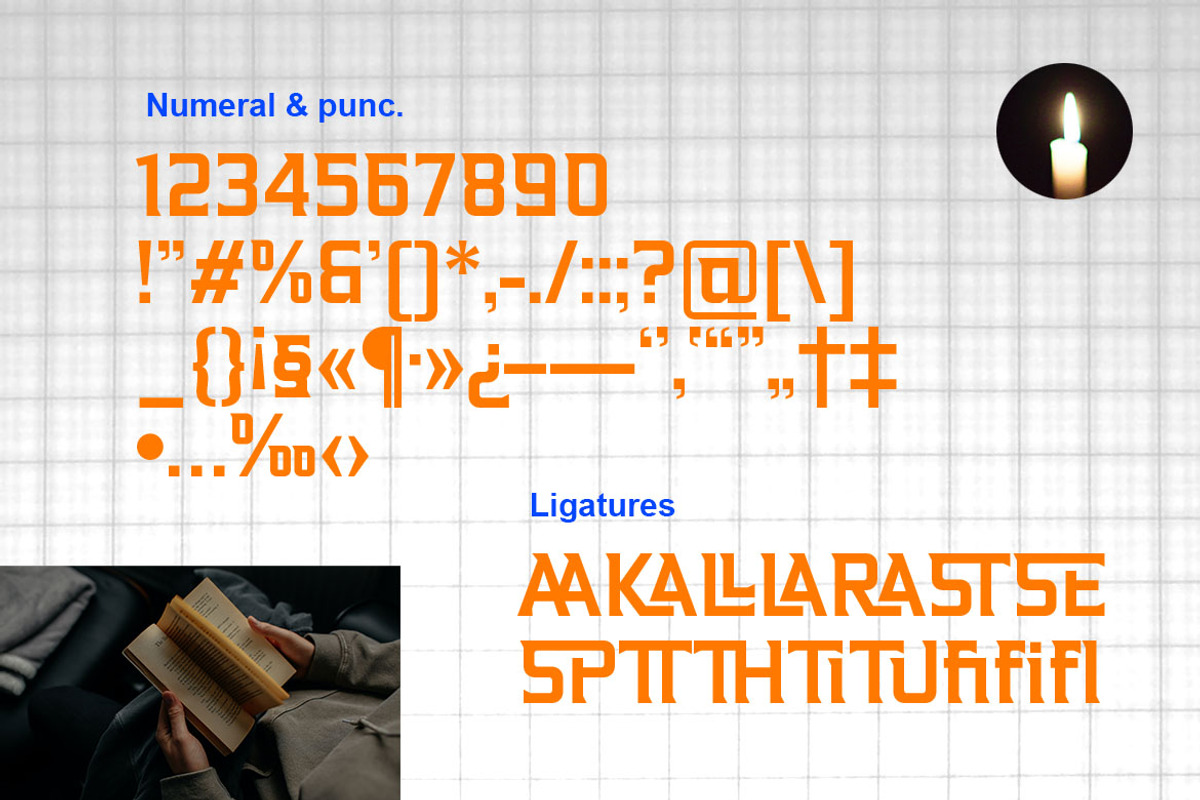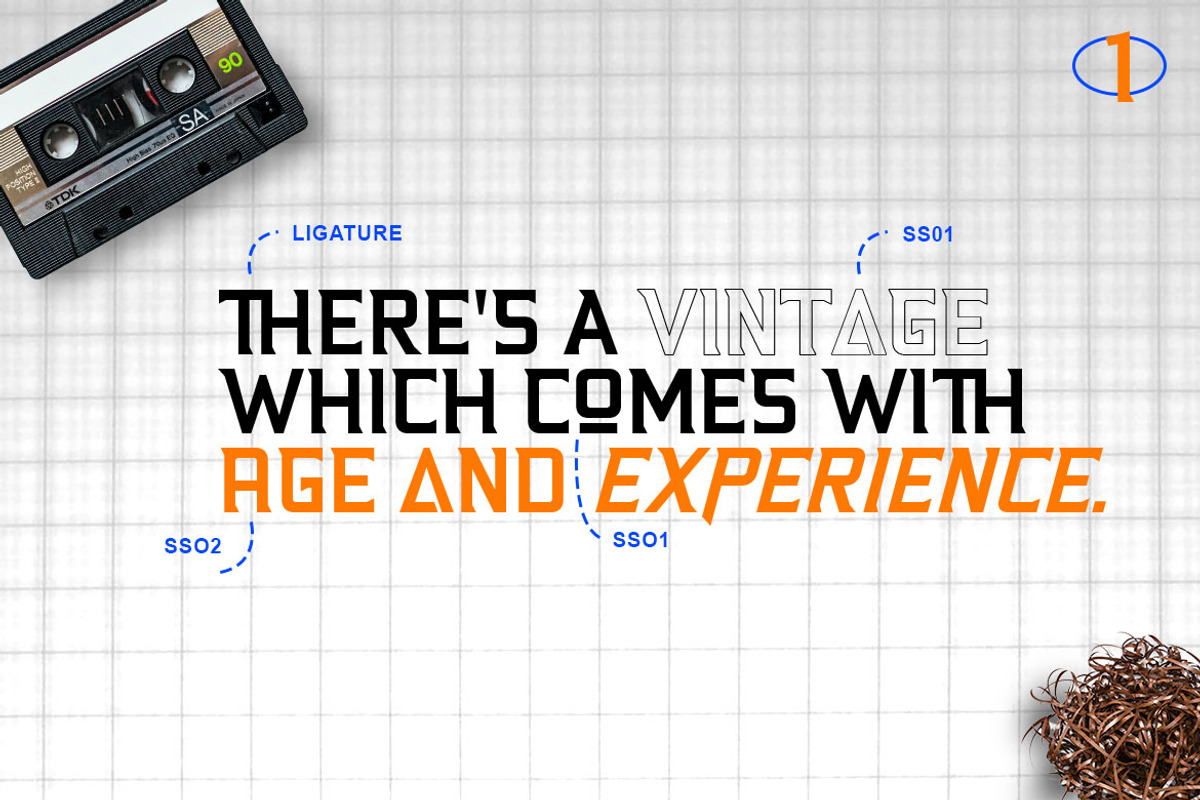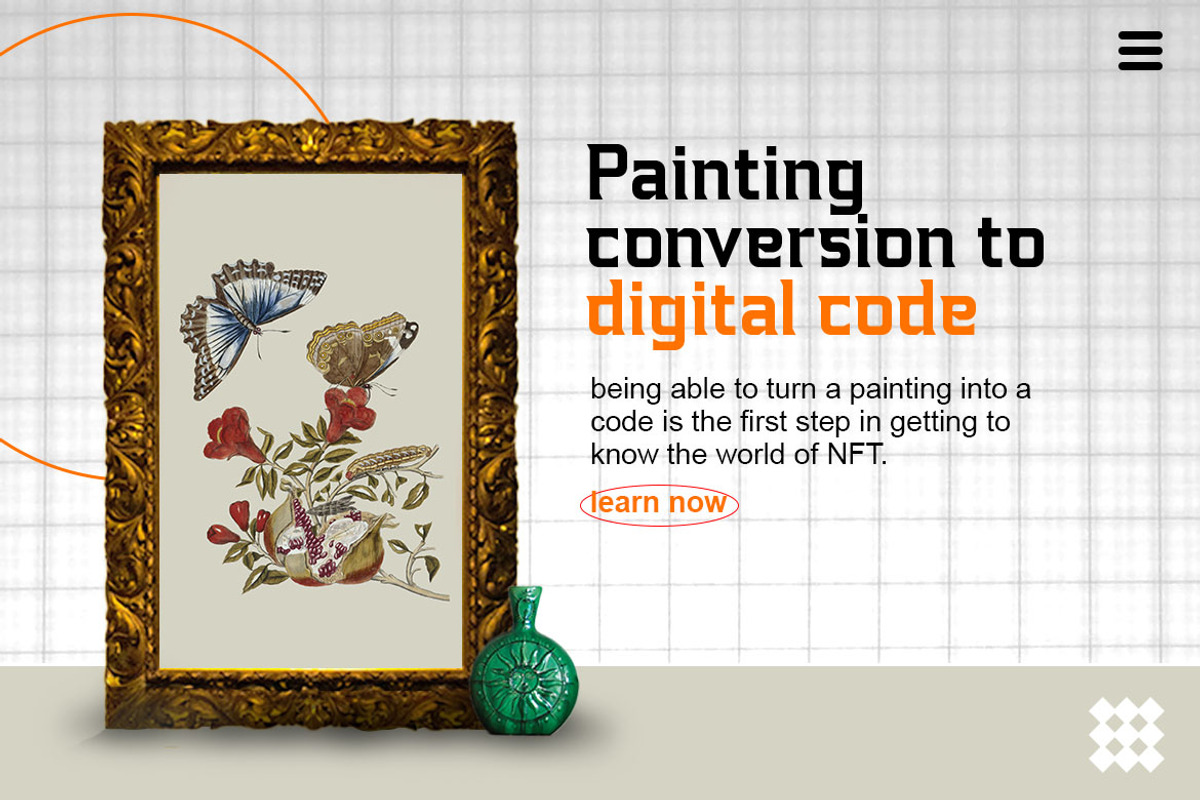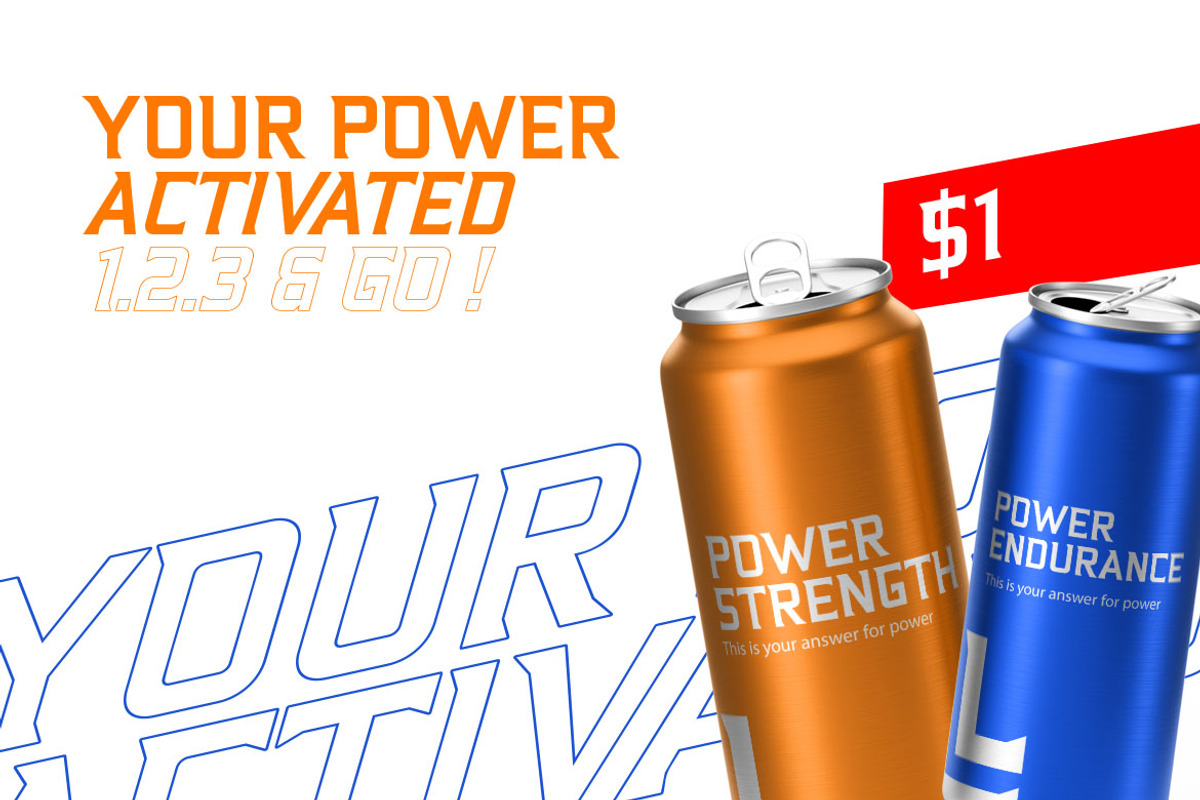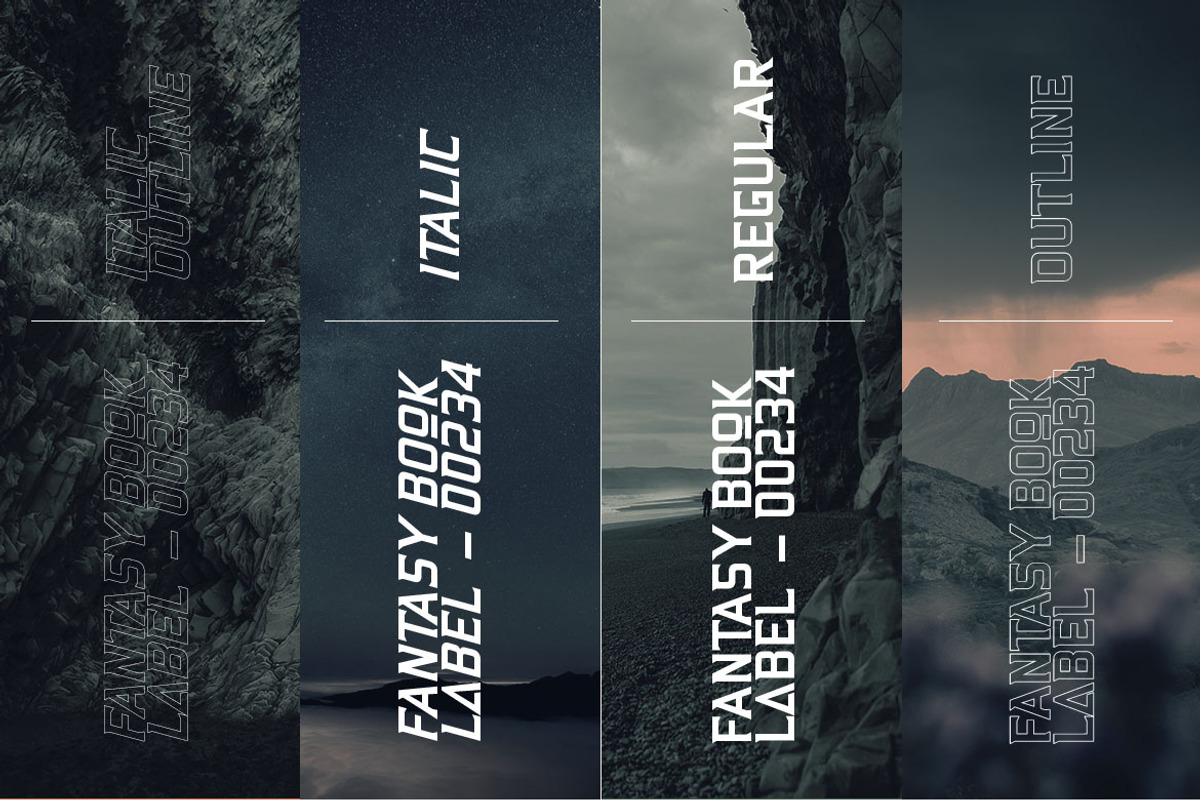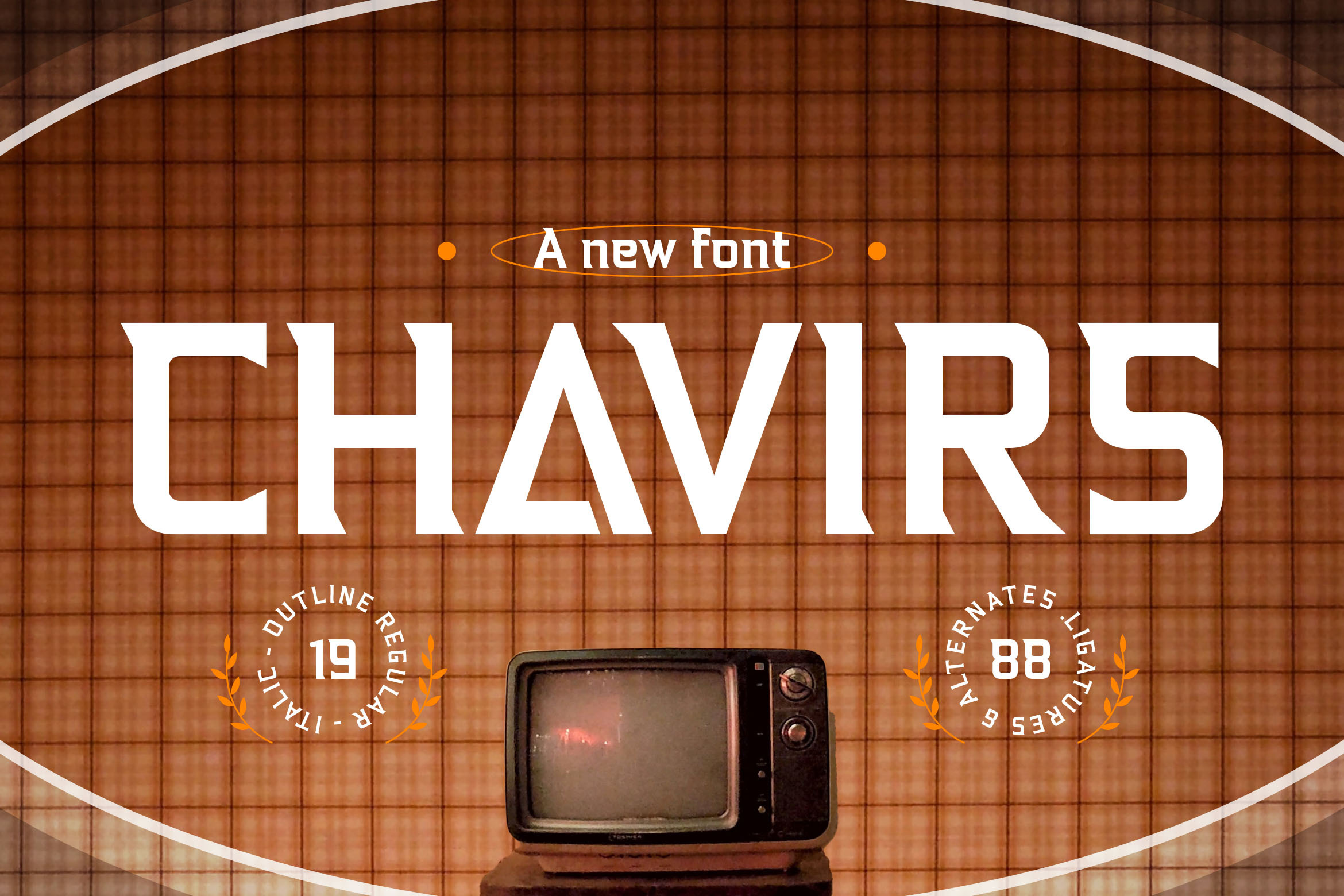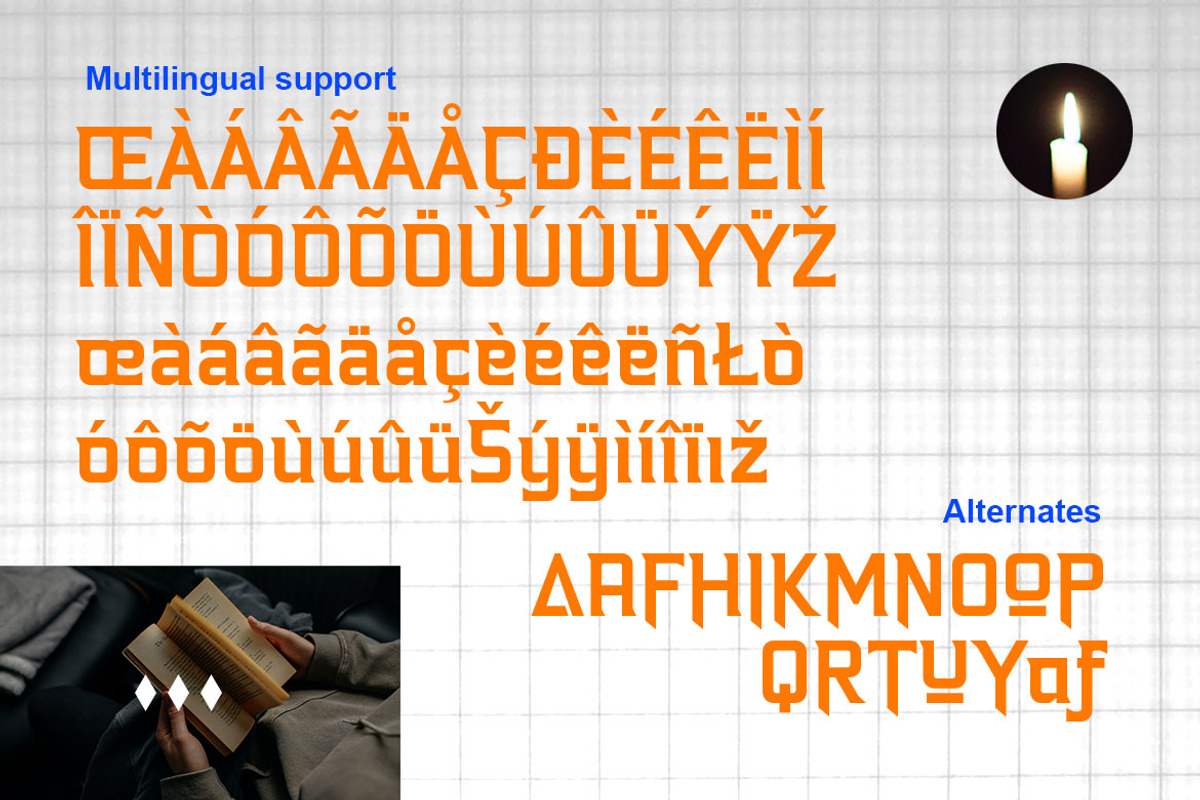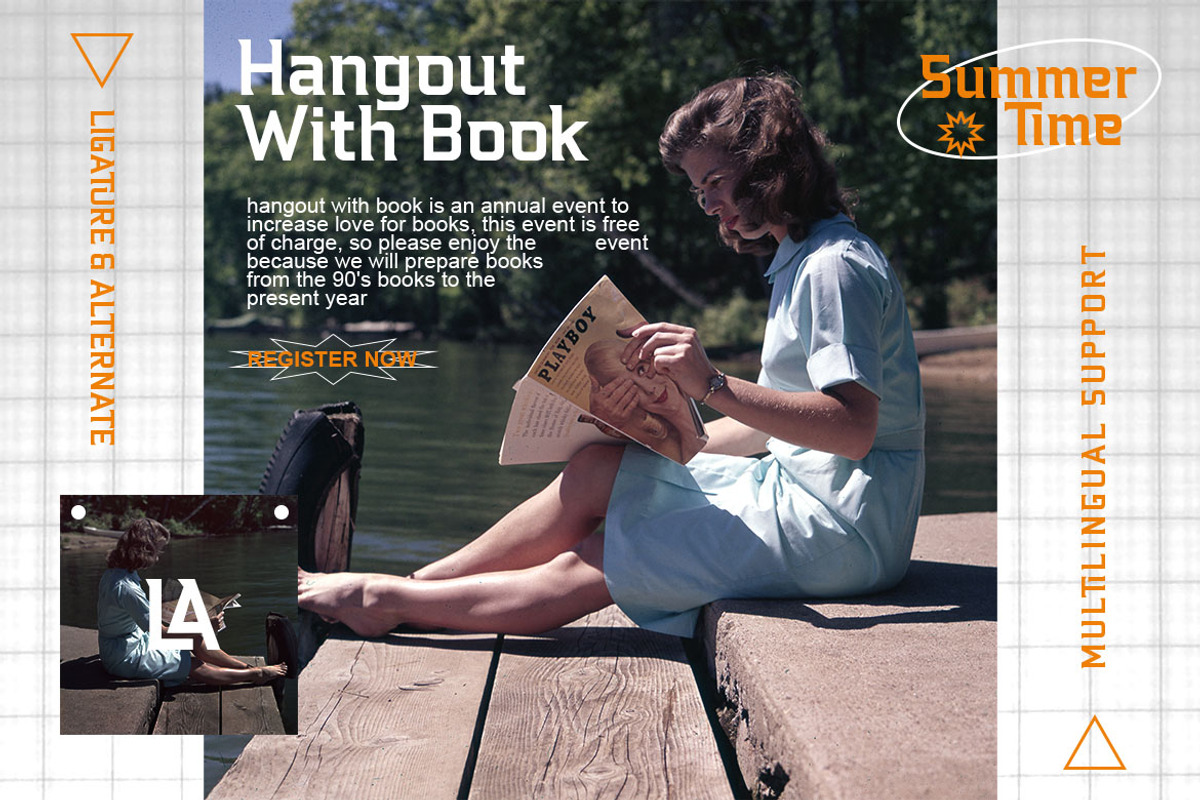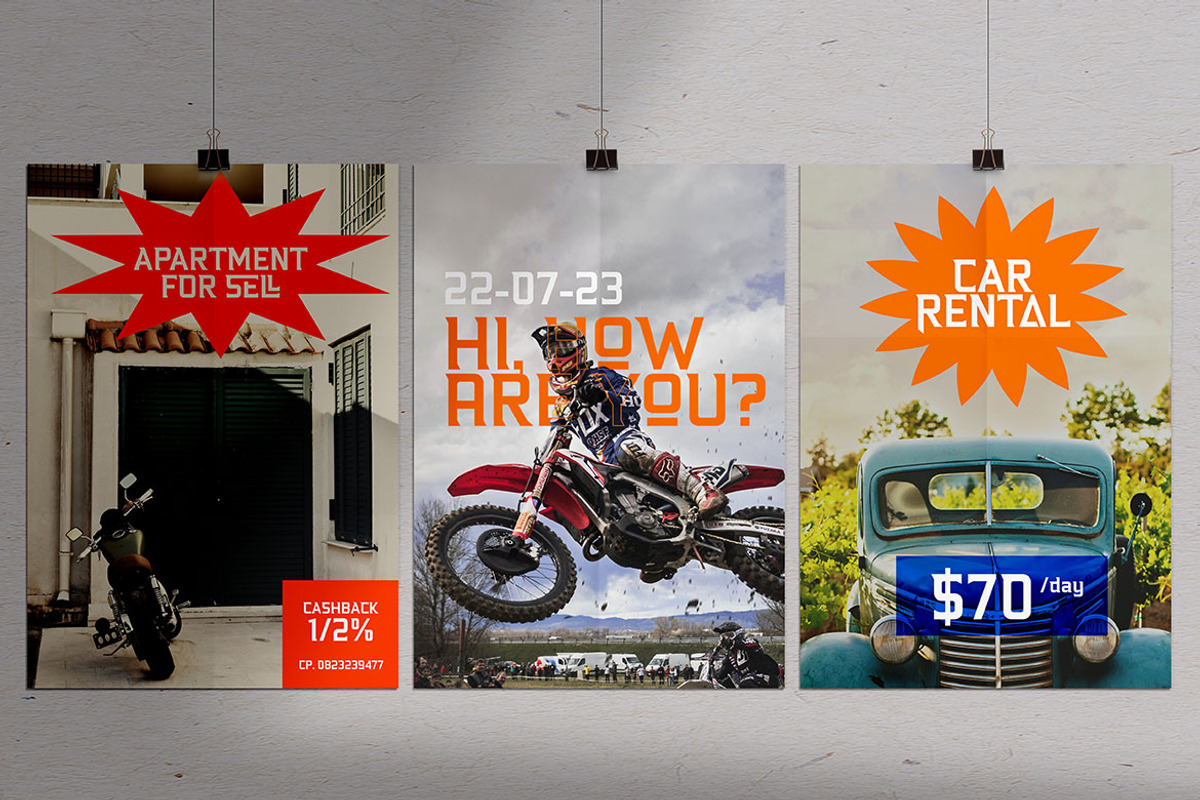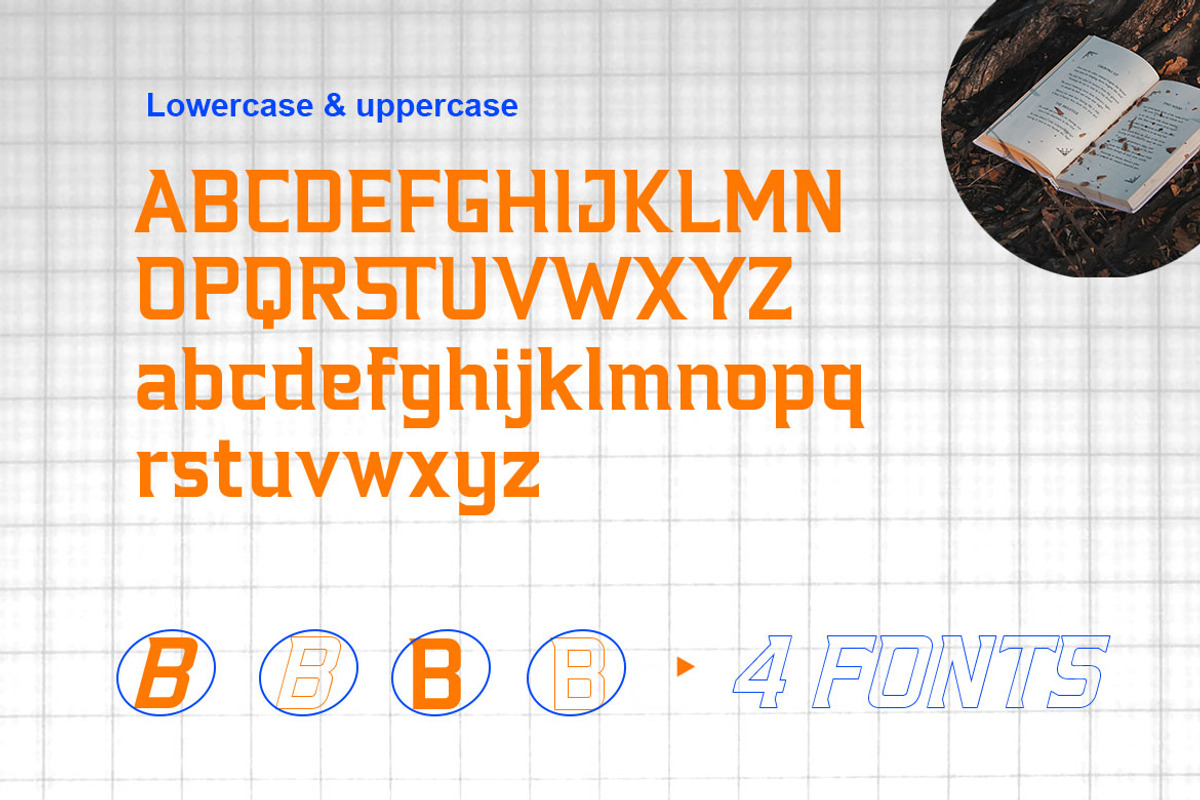
Chavirs - Modern Font
Chavirs - Modern Font is a set of upper & lowercase serif characters which includes a large range of punctuation glyphs, numerals, and multilingual support. A full set of stylistic alternates for lowercase characters are also available.
Available :
- Italic
- Italic outline
- Outline